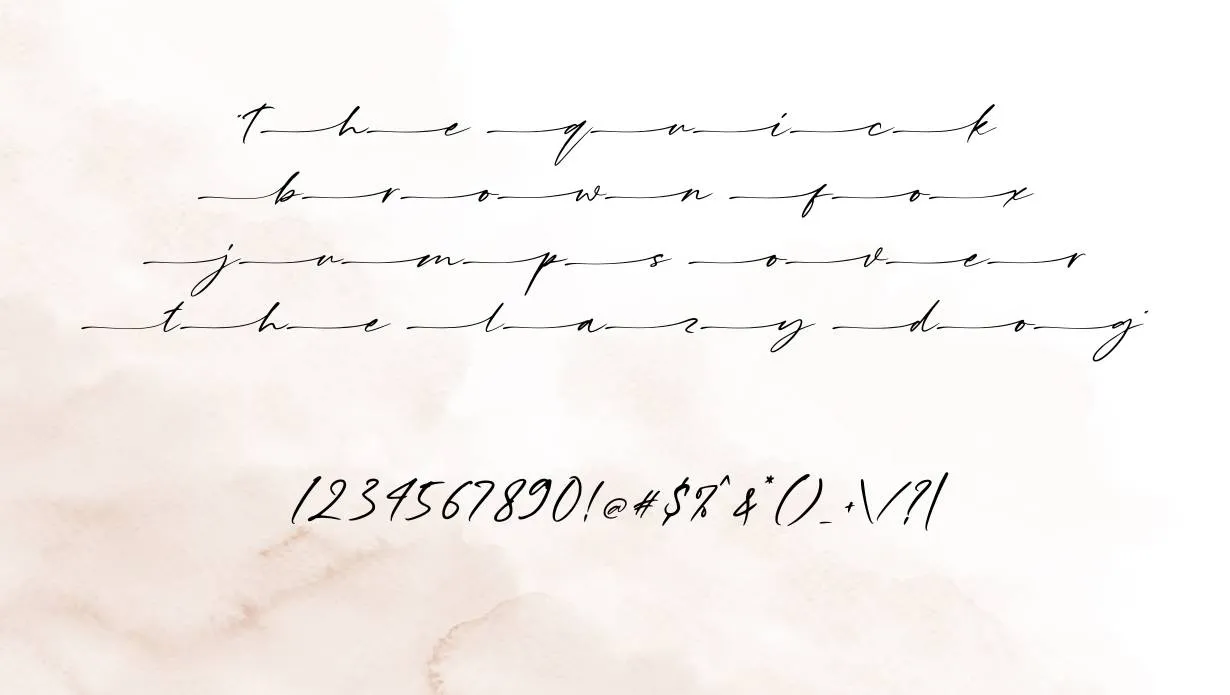
The Kiss Me Font is a romantic embrace in typographic form, perfect for projects related to love and tenderness. Its graceful characters are like a gentle whisper, making it an ideal choice for wedding invitations, heartfelt messages, or any design that seeks to convey a sense of romance.
Name | Kiss Me Font |
Designer | Anton Cahyono |
Style | Calligraphy |